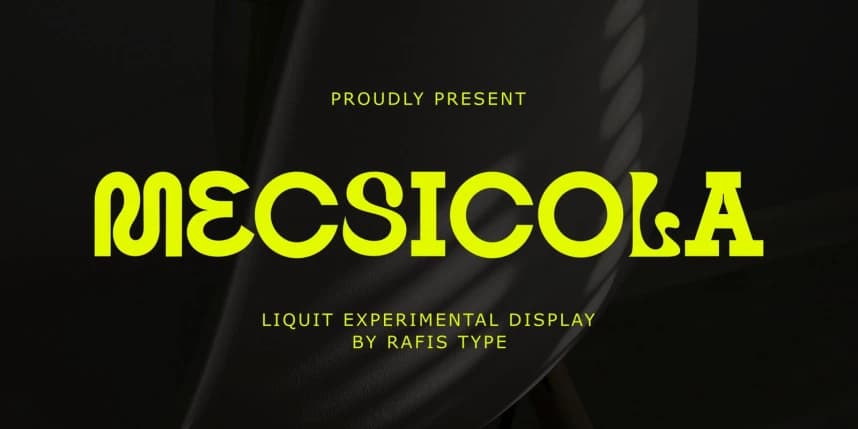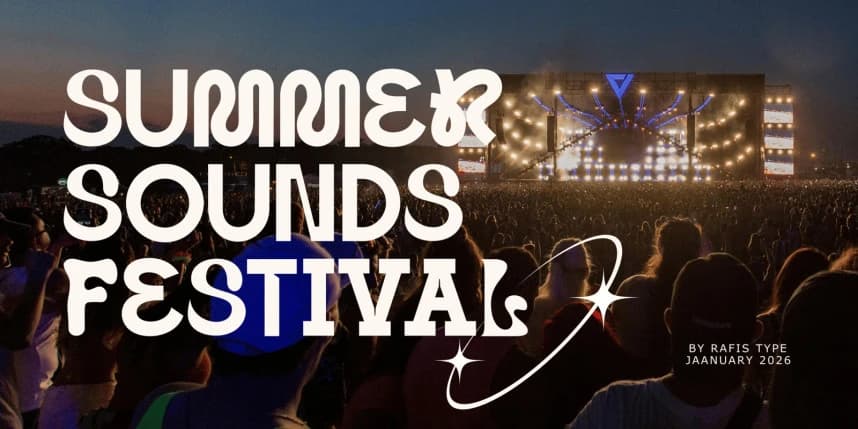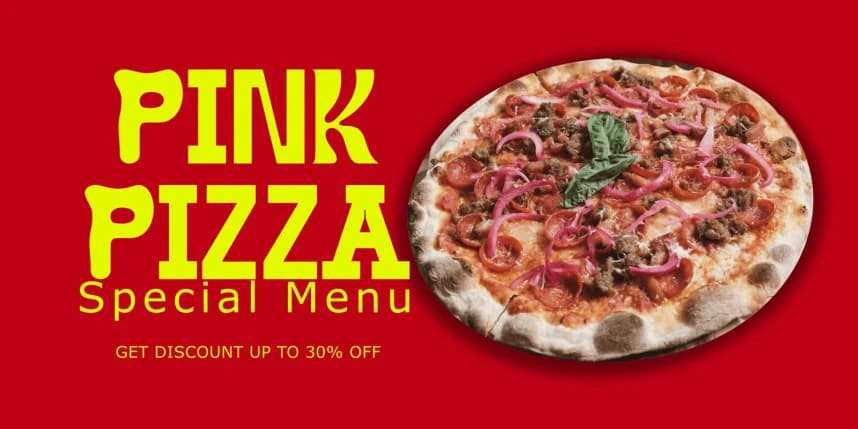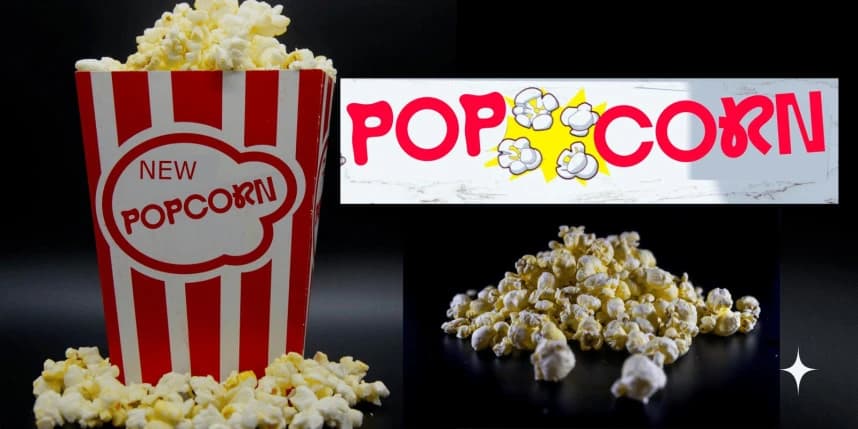
Mecsicola Font
Mecsicola Font is a display font with a unique and expressive character, inspired by a modern retro vibe with a playful touch. Its letterforms are bold yet flexible, creating a strong, creative, and stylish impression.